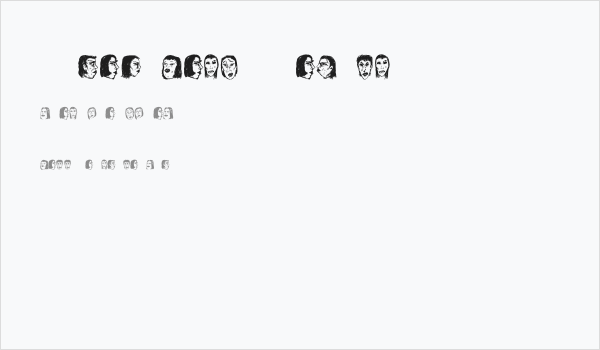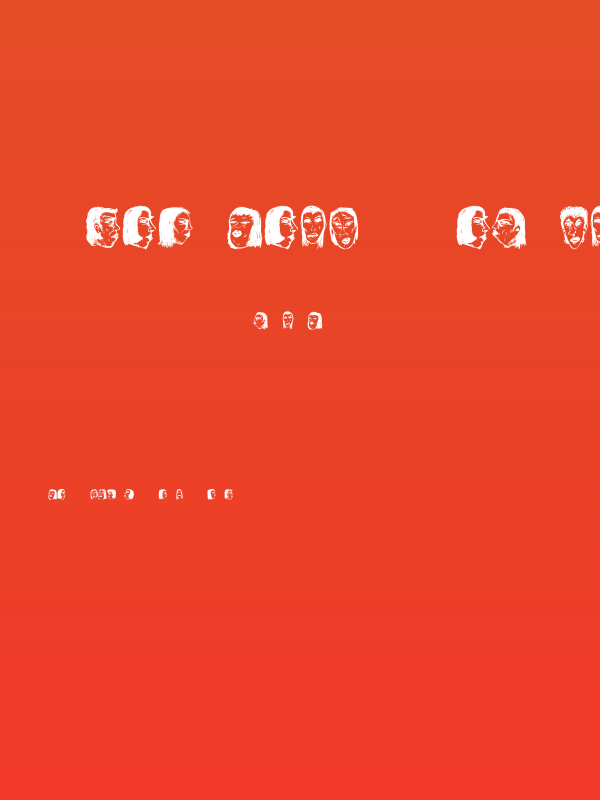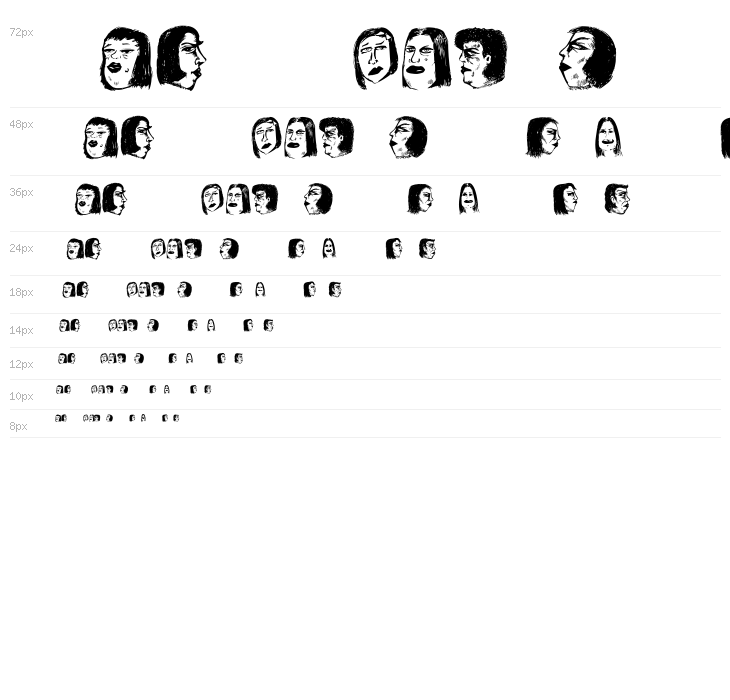
Women Heads Regular Font
Women Heads Regular Description
A highly decorative and illustrative font composed of hand-drawn women's heads, each character represented by a unique portrait with expressive facial features and varied hairstyles. The style is sketch-like, with bold, textured strokes and a strong artistic flair.
| Overall Style | Decorative, Artistic, Hand-drawn |
| Use Case | Display, Posters, Artistic projects, Logos |
| Proposed Projects | Art posters, album covers, zines, editorial illustrations, creative branding, themed event materials. |